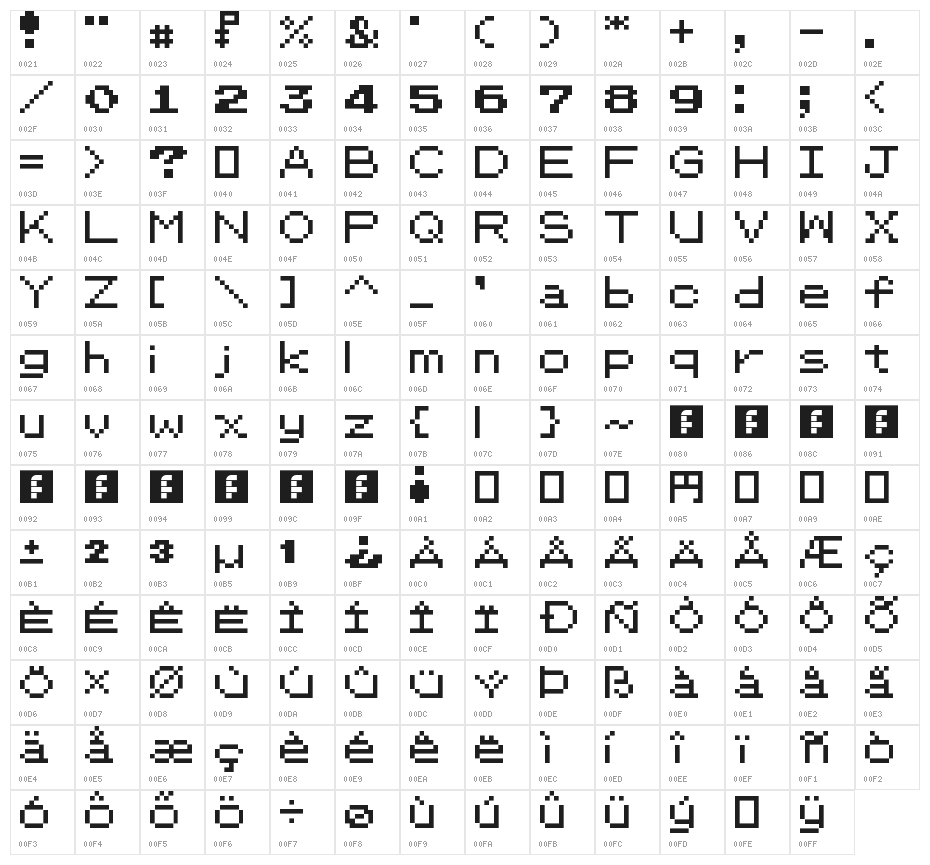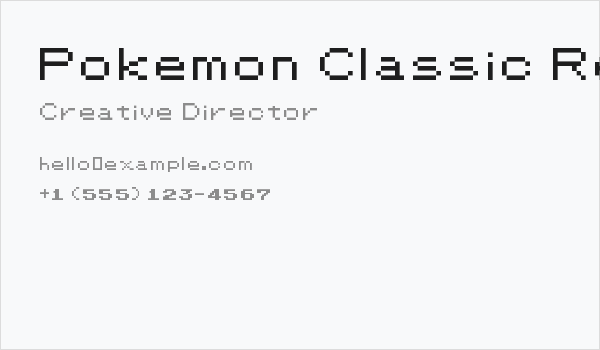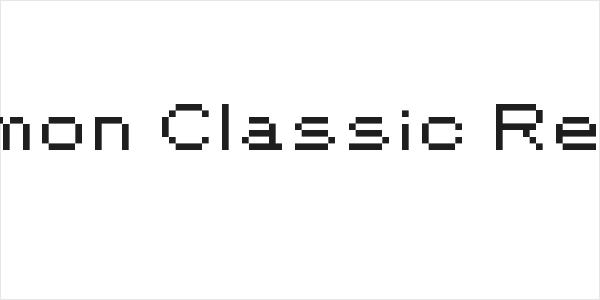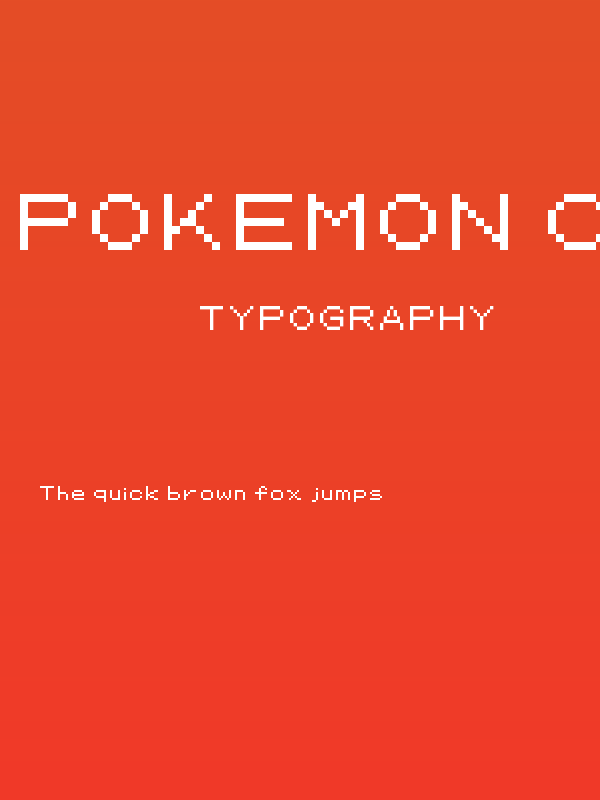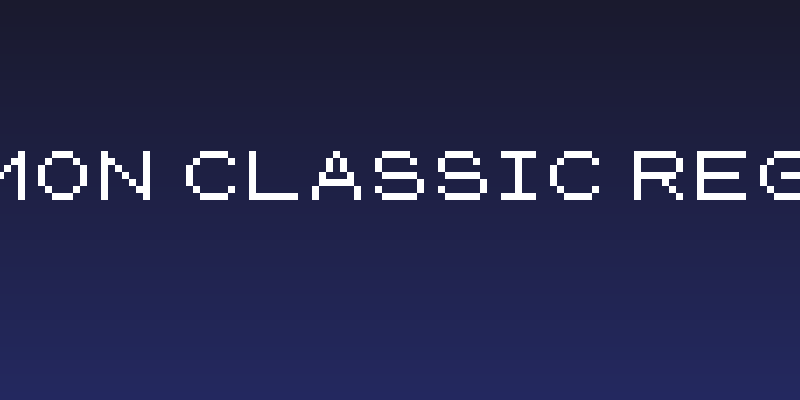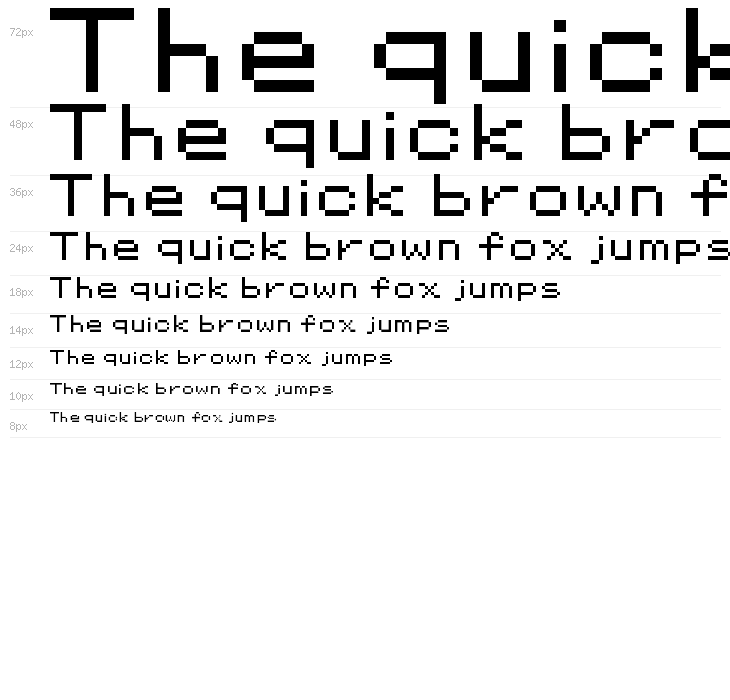
Pokemon Classic Regular Font
✎ Pixel
| Categorie | Pixel |
| Caso d'uso | Logos, Headlines, Digital Art |
| Progetti proposti | Ideal for retro-themed video games, nostalgic branding, digital art projects, and any design requiring a vintage gaming aesthetic. |